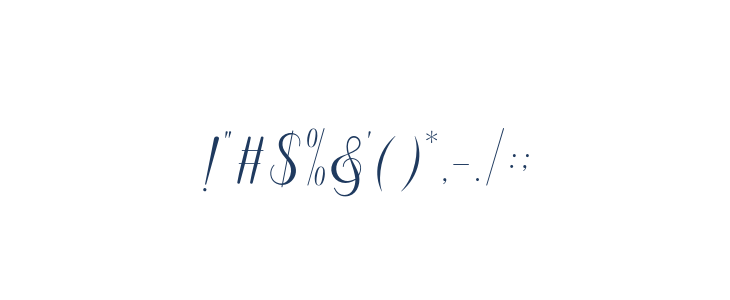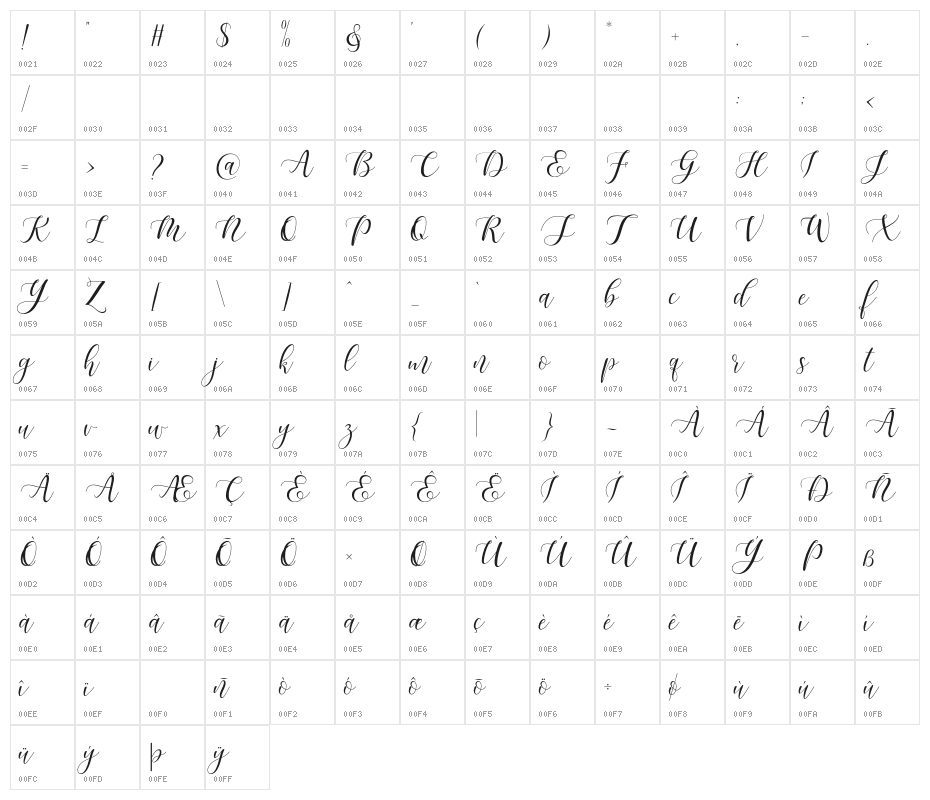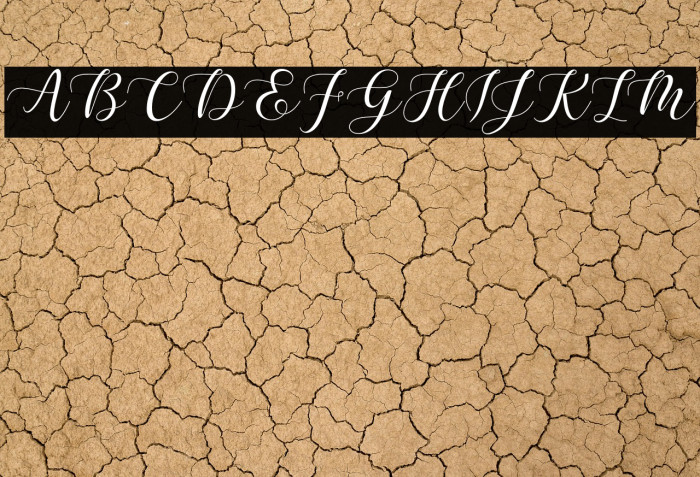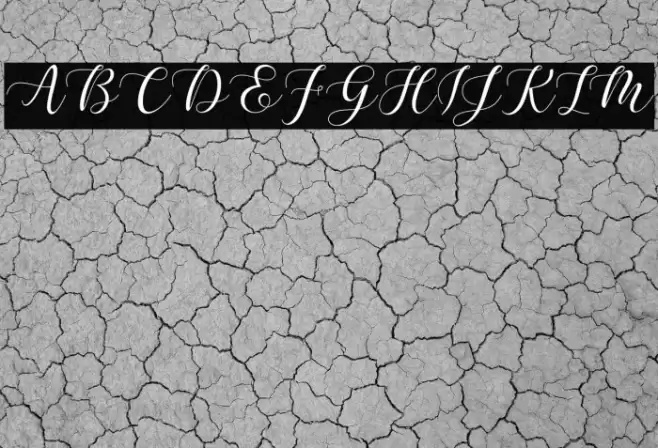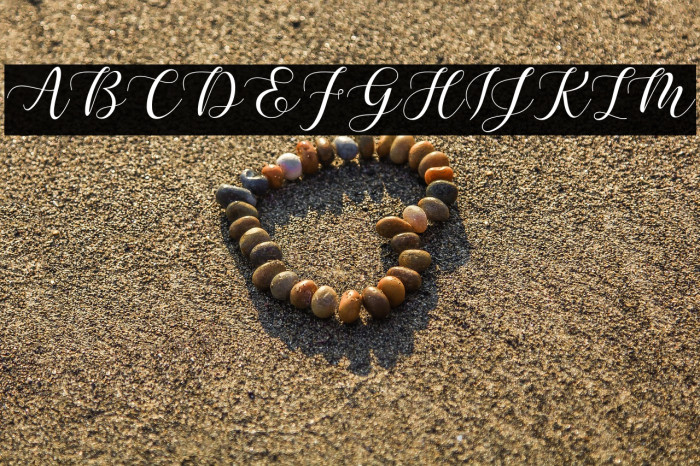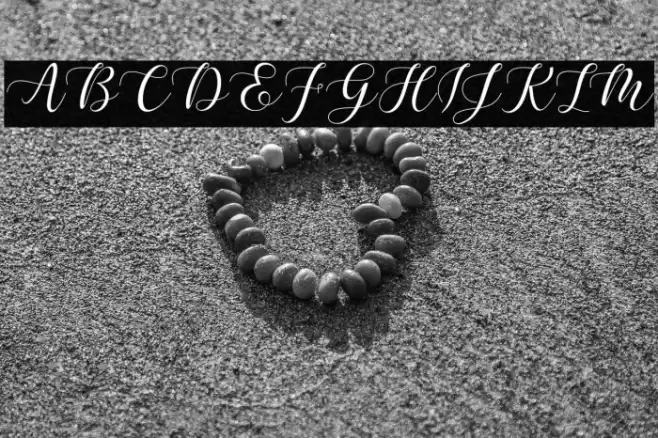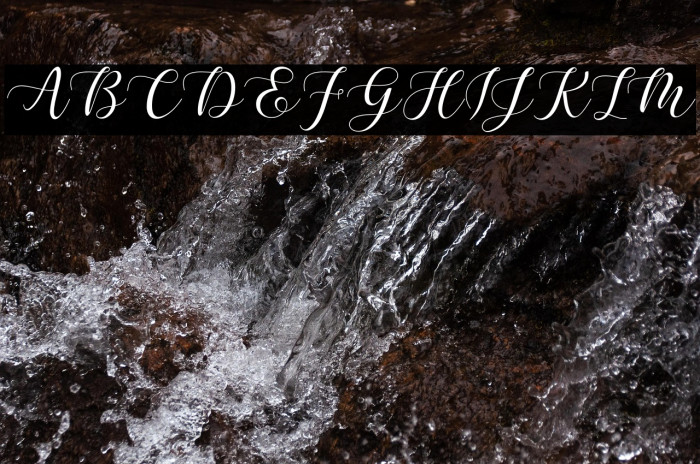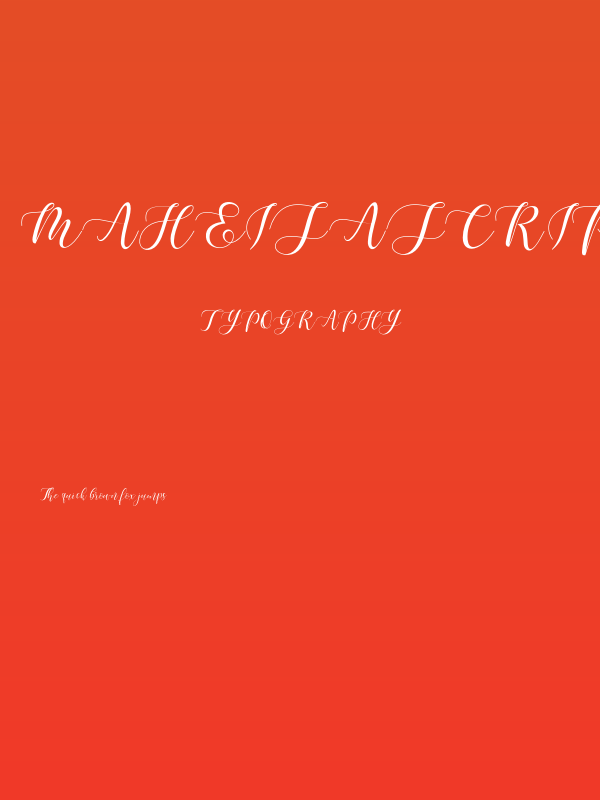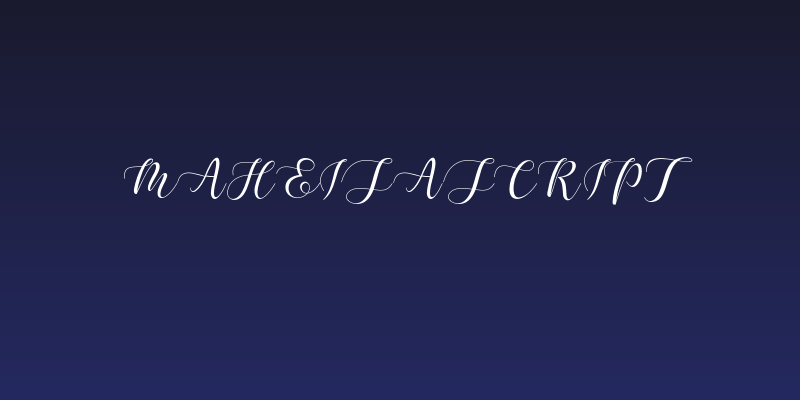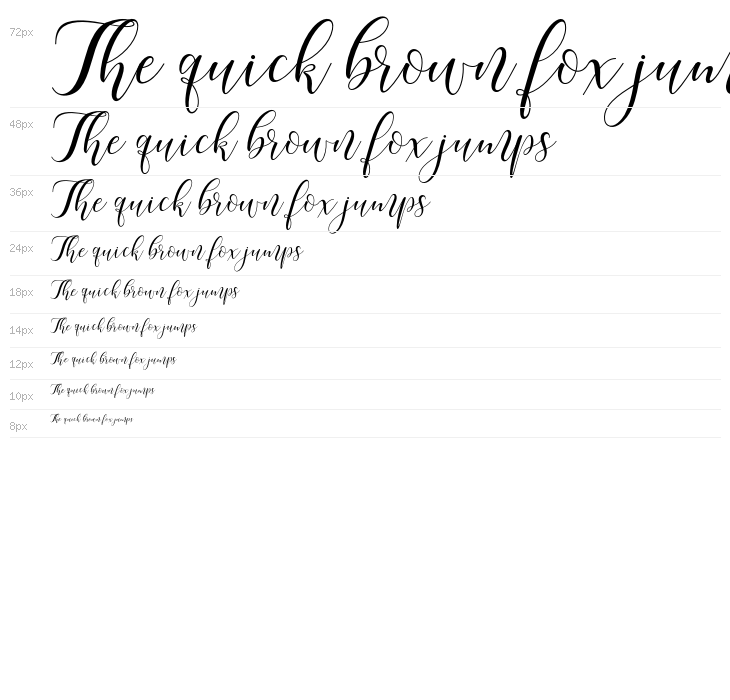
MaheisaScript Font
MaheisaScript Description
This elegant script font features flowing, interconnected letters with a calligraphic style. The uppercase characters are adorned with graceful loops and swashes, giving them a sophisticated and artistic appearance. The lowercase letters maintain a consistent fluidity, enhancing readability while retaining an ornate quality. The numerals and special characters are designed to complement the overall aesthetic, with smooth curves and delicate lines. This font exudes a sense of elegance and refinement, making it ideal for formal invitations, branding, and decorative purposes.
| Use Case | Invitations, Branding, Decorative text |
| Proposed Projects | Ideal for wedding invitations, luxury branding, greeting cards, and decorative projects. |